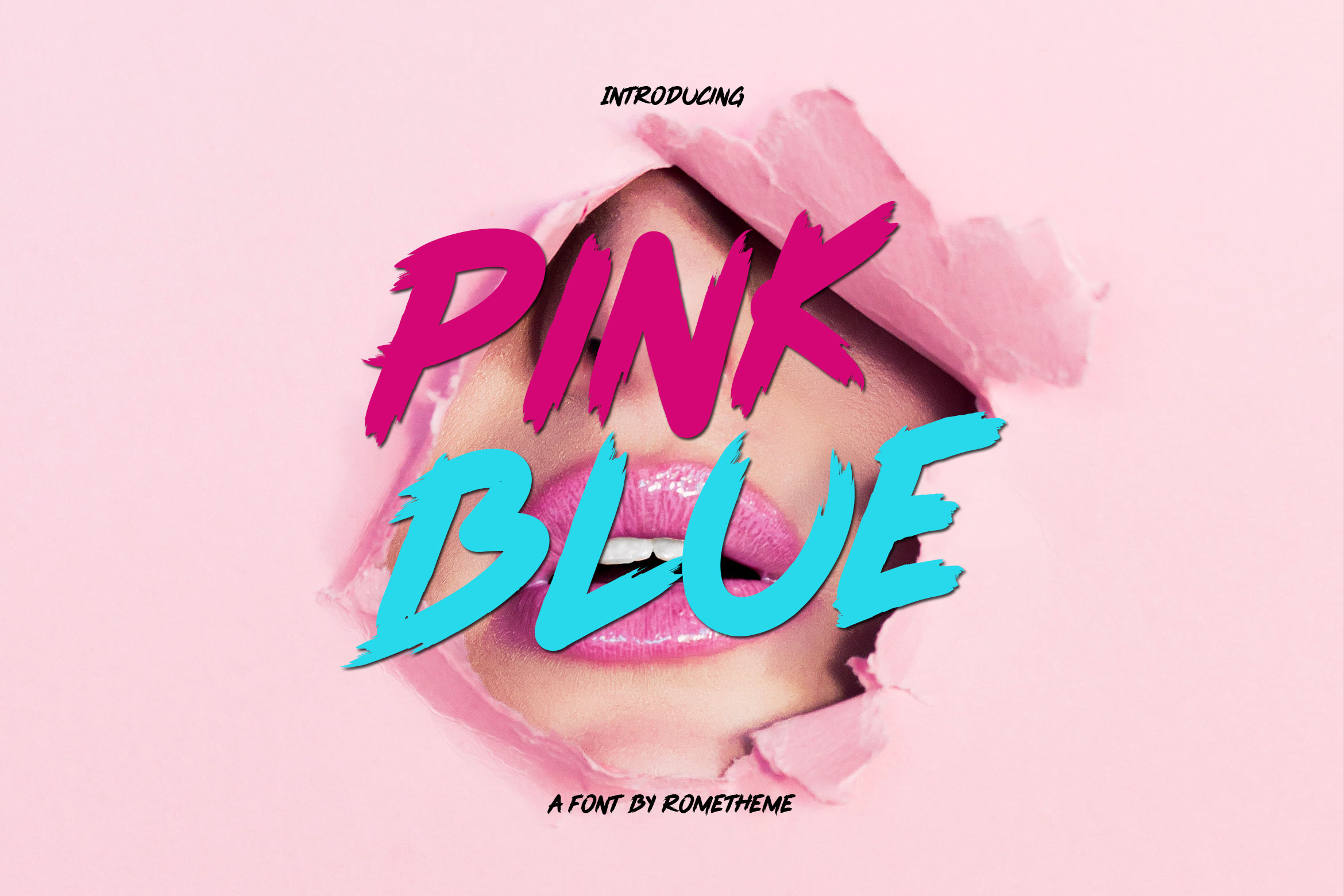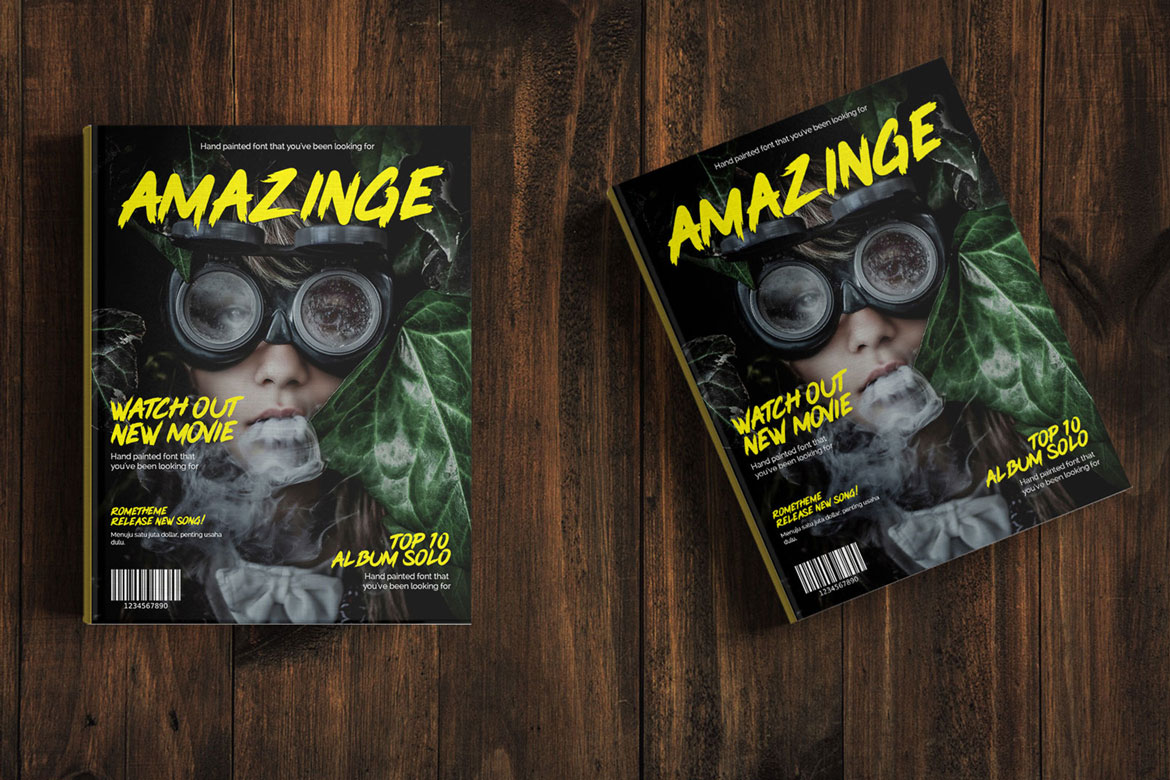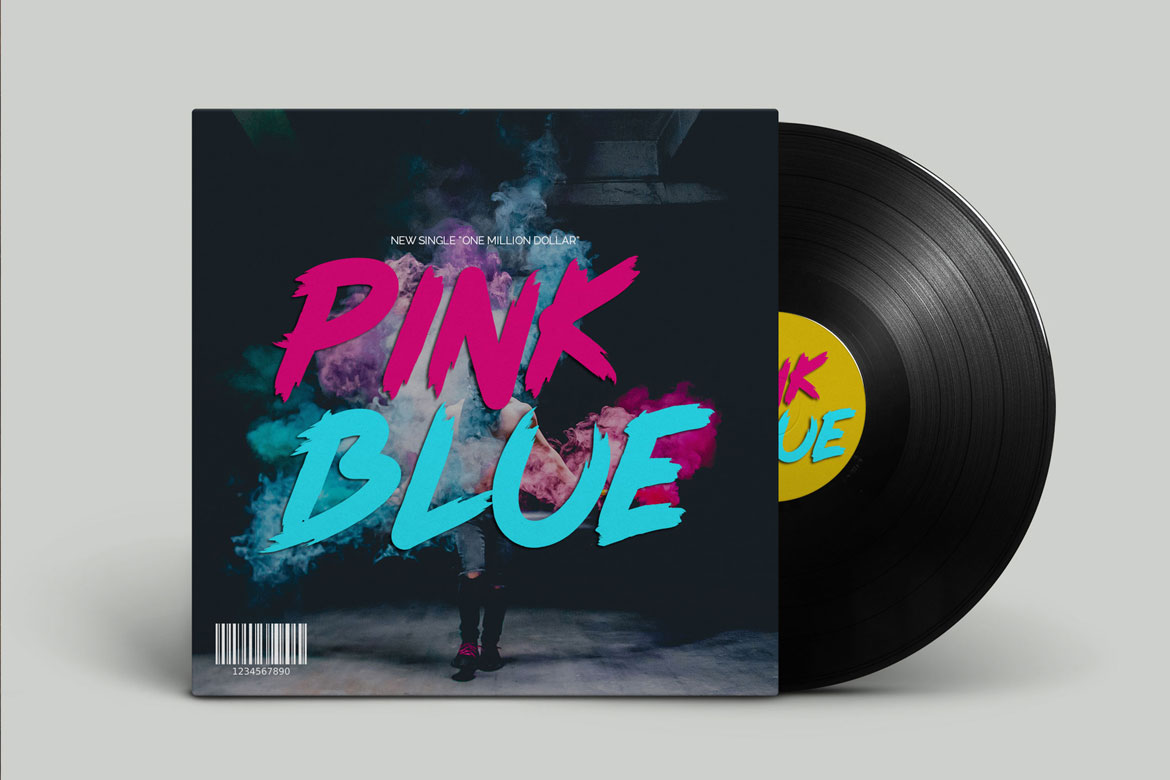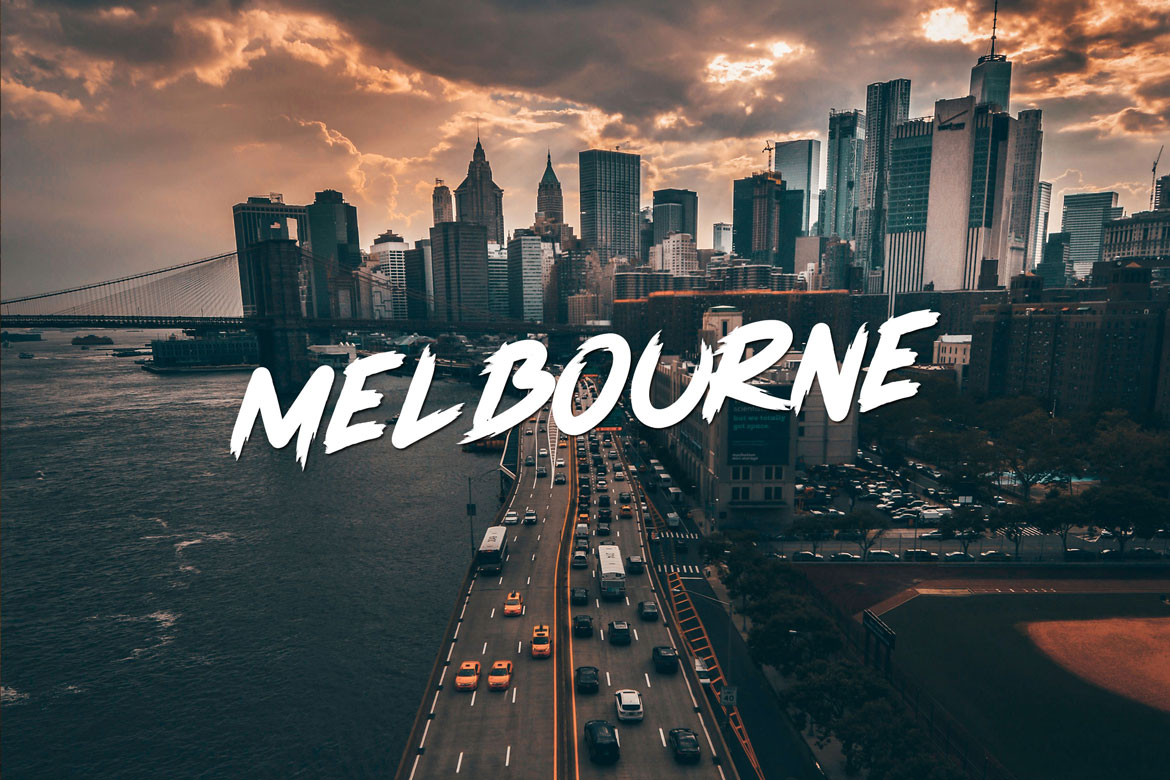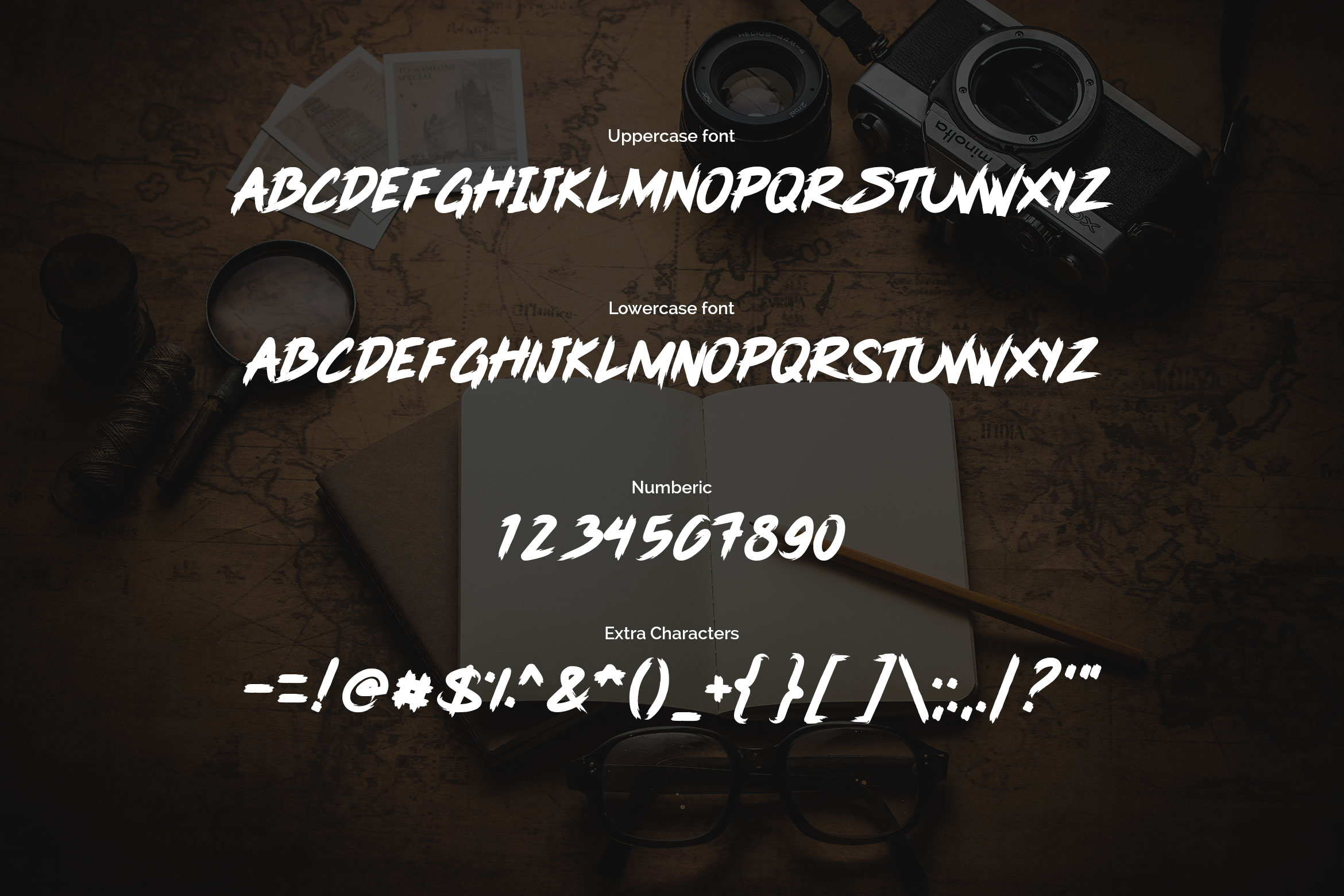
Pink Blue Free Font
Pink Blue Free Font is a modern handdrawn font, this font looks elegant, classy, readable, stylish, catchy, and easy to use. Pink Blue Free Font is the best choice for your professional design projects, including quotes, album cover, business card, logo, branding, magazines, social media, advertisements, product designs, and many other design projects. This free typeface was designed by a talented Yahdi Romelo. If you like it don’t forget to check out the full version.